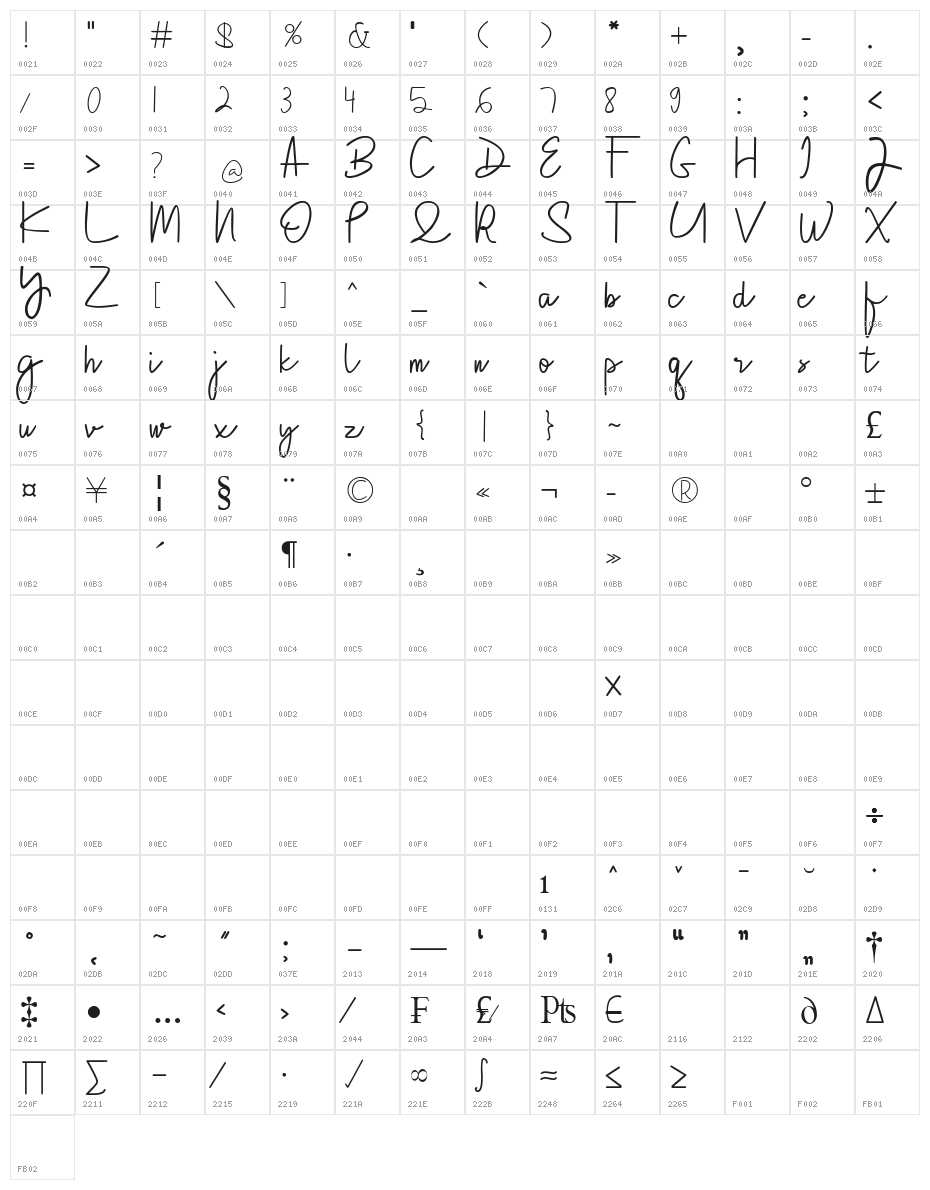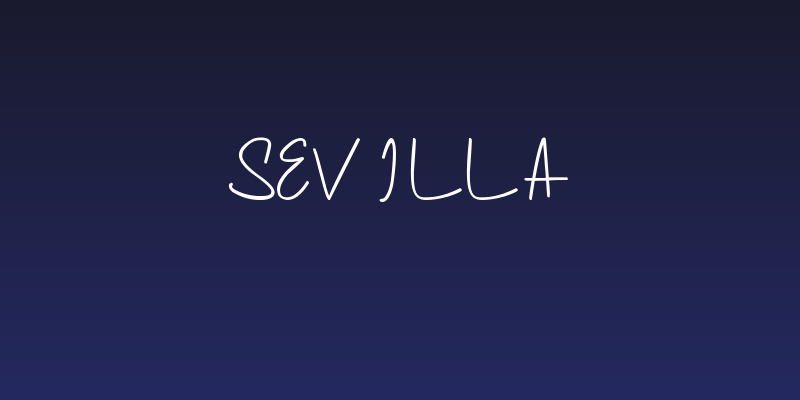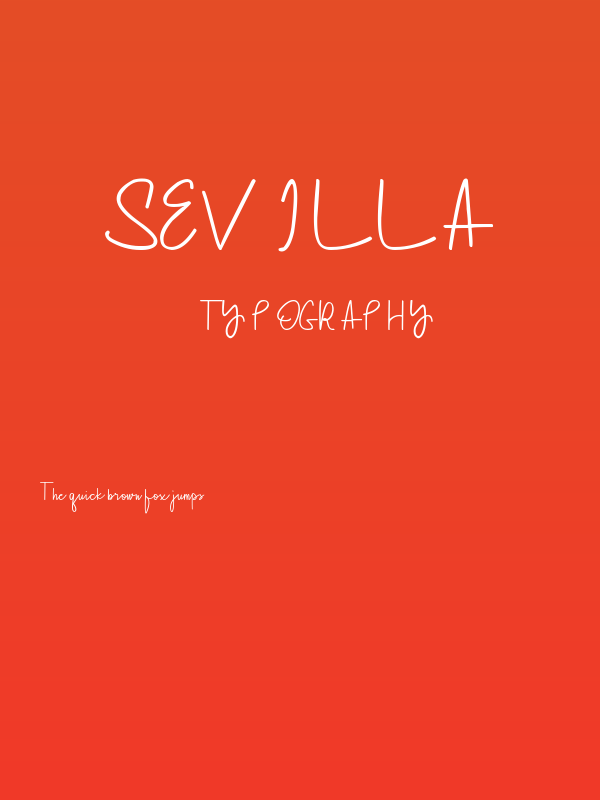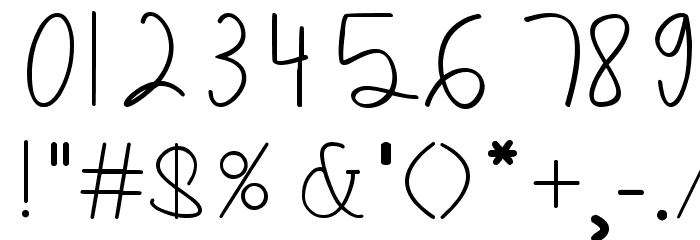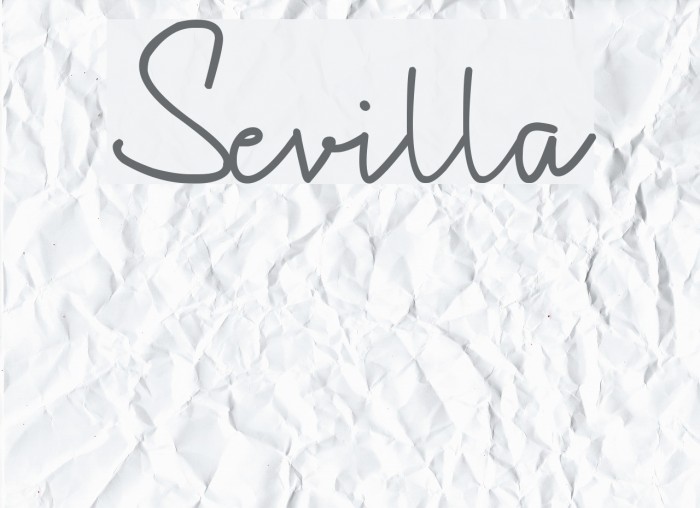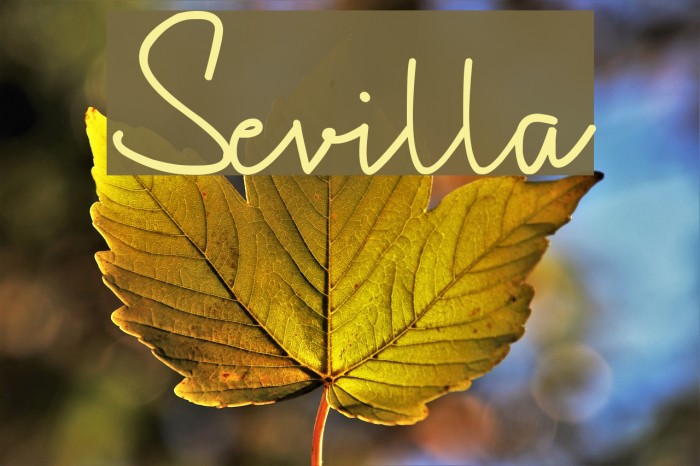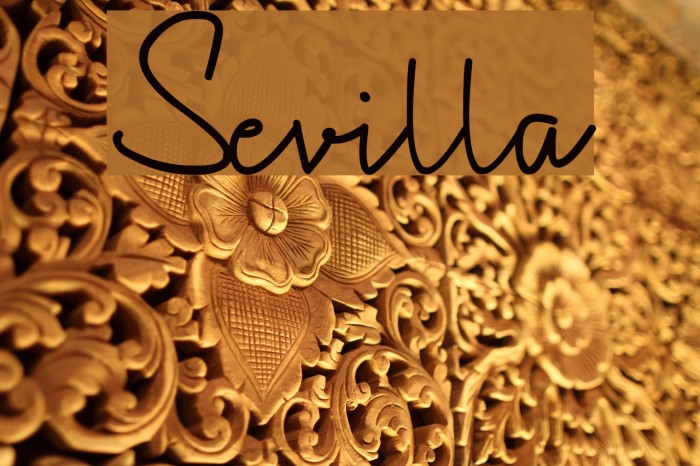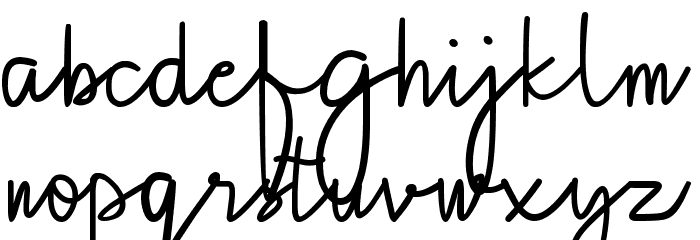
Sevilla Font
Sevilla Description
This font features a playful and casual handwritten style, characterized by its fluid and continuous strokes. The uppercase letters are slightly more structured, maintaining a consistent height, while the lowercase letters exhibit a more freeform and dynamic appearance. The numerals are clear and easy to read, maintaining the same playful aesthetic. Special characters are integrated seamlessly, adding to the font's versatility. The overall design is approachable and friendly, making it suitable for a variety of informal applications.
| Proposed Projects | Ideal for greeting cards, invitations, personal branding, and social media graphics. |